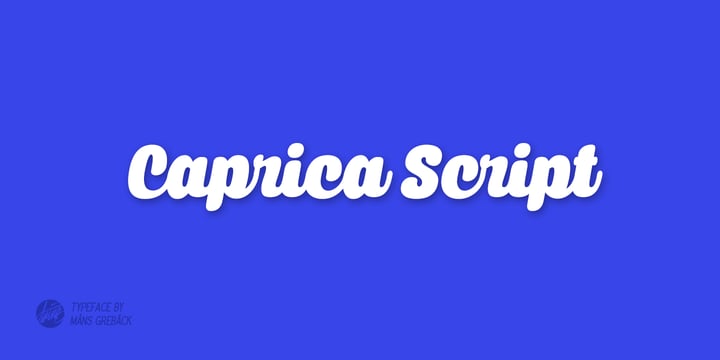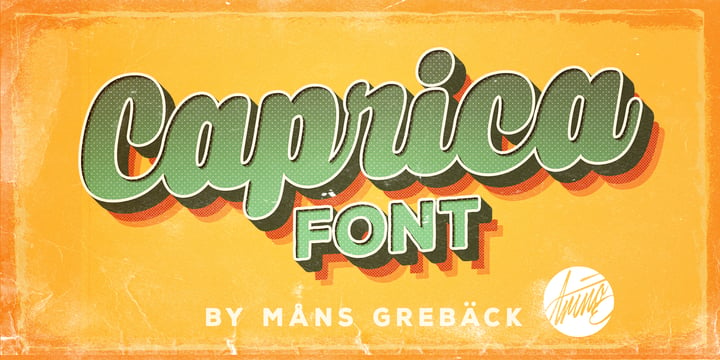
Caprica Script
About Caprica Script Font Family
Round and clean high quality script font, usable for a wide variety of designs.
Designers: Måns Grebäck
Publisher: Mans Greback
Foundry: Mans Greback